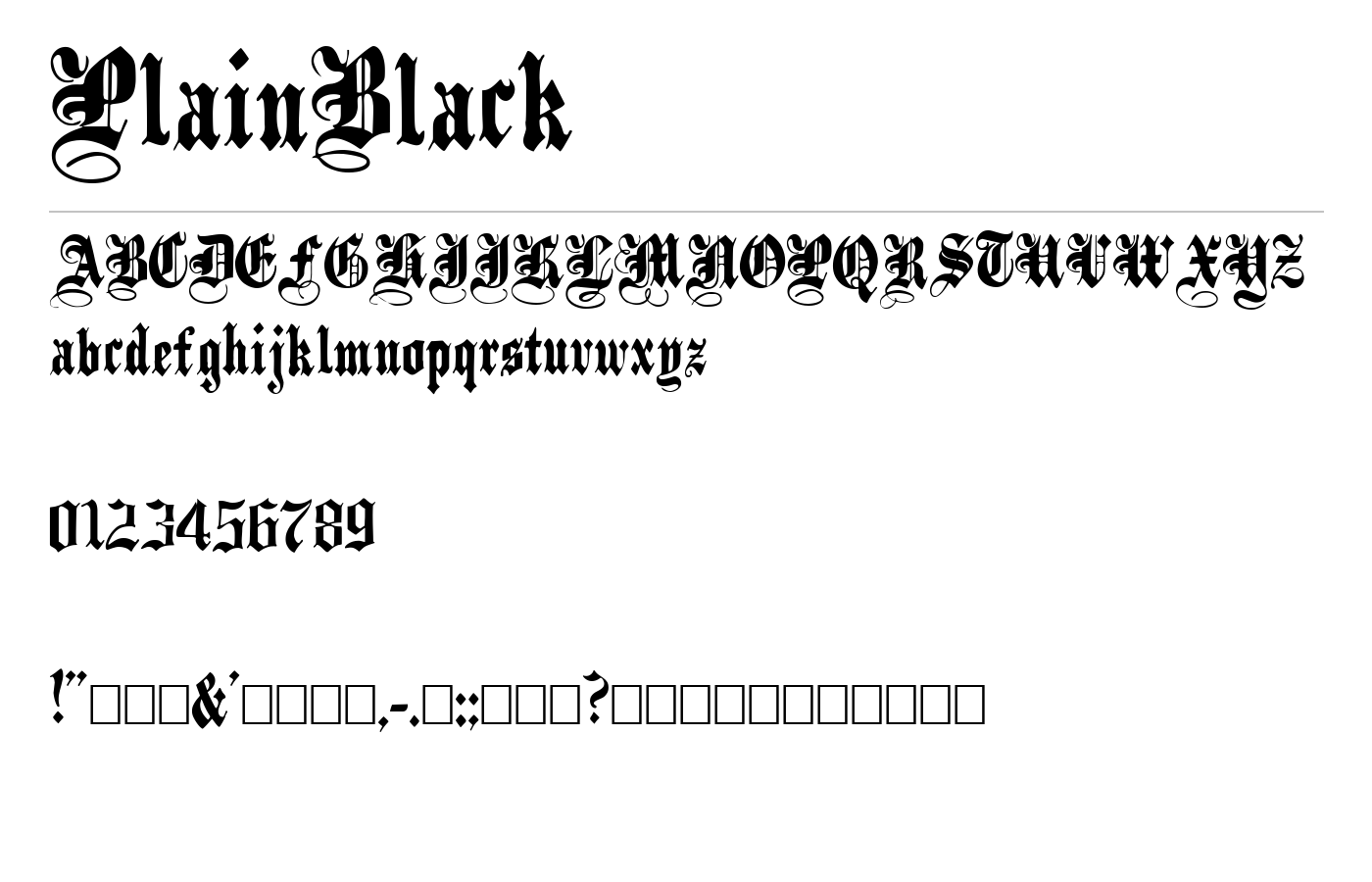
PlainBlack is a bold blackletter font with intricate, decorative uppercase letters and solid, dense lowercase characters that evoke a historic, gothic style. Its heavy weight and sharp, ornamental strokes make it perfect for striking headlines, logos, or designs that seek a vintage or medieval flair. This font works well in projects that want to communicate tradition, formality, or a dramatic artistic mood.
PlainBlack Font
About PlainBlack Font